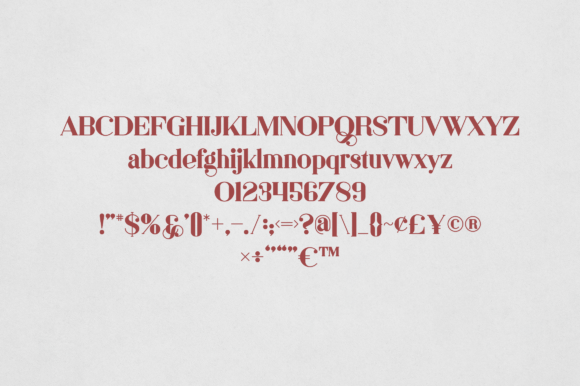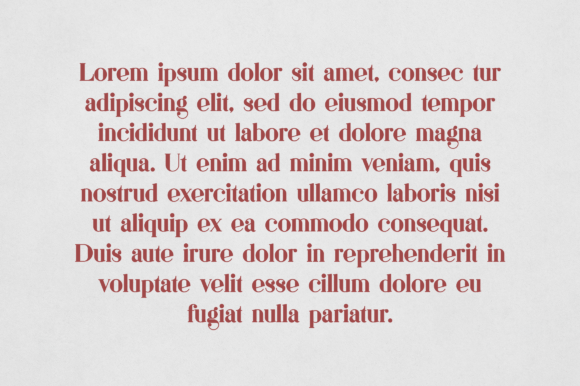
The Magic of Greta Font: Elevate Your Design with Elegance
I’ll never forget the time I was working on a branding project for a luxury home goods client. I had spent hours perfecting the logo, but something felt off. The text just didn’t seem to match the sophistication of the brand. I scoured font libraries, but nothing seemed quite right. That’s when I stumbled upon Greta Font. It was like a breath of fresh air – elegant, versatile, and oh-so-unique. In this article, I’ll share my love for Greta Font, its features, and how to make the most of it in your designs.
An Honest Review of Greta Font
- ✨ Elegant and sophisticated, perfect for high-end branding
- ✅ Highly versatile, works well in various design contexts
- 🔥 Supports OpenType features, glyphs, and stylistic alternates
- 📸 Beautiful in both headlines and body text
While Greta Font is amazing, it’s not perfect. Here are a few things to keep in mind:
- 🤔 Some users might find the font a bit too ornate for very casual designs
- ⚠️ Limited availability of certain OpenType features in older software
A Practical Guide to Using Greta Font
The Story Behind Greta Font
Greta Font was inspired by the elegance of traditional European typography. Its creator, a passionate typographer, aimed to craft a font that would bring sophistication and uniqueness to modern designs. With Greta Font, you’ll add a touch of luxury to any project.
| Font Name | Greta Font |
| Author | vladfedotovv |
| What makes Greta Font unique? | Greta Font’s unique blend of elegance and versatility, along with its support for OpenType features, glyphs, and stylistic alternates. |
| Is Greta Font suitable for body text? | Absolutely! Greta Font is designed to be legible and elegant in both headlines and body text. |
Greta Font is a game-changer for designers, crafters, and creative hobbyists looking to elevate their typography. With its elegance, versatility, and range of features, it’s sure to become a favorite in your font library.